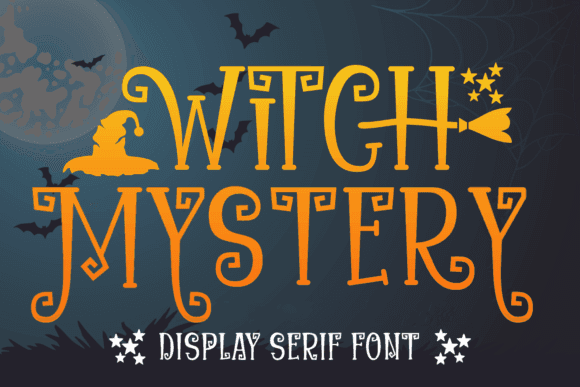
The Witch Mystery Font is an enchanting display typeface designed with magical undertones and vintage gothic styling. This font is ideal for crafting Halloween signs, potion labels, party invites, and occult-themed branding that demands a mysterious aesthetic.
Each letterform carries whimsical yet refined details, making it suitable for both playful and dark fantasy-inspired designs. Whether used for digital projects or physical printables, this font casts a visual spell across any medium.
- Halloween and seasonal product designers
- Gothic or occult-themed brand builders
- Poster and event invitation creators
- Scrapbookers and journal decor artists
- Halloween party signage and invites
- Witchy quotes on t-shirts and mugs
- Spellbook-style covers and printable labels
- Decorative posters and book titles
- Vinyl decals for bags, jars, and candles
- Spellbinding theme perfect for Halloween
- Gothic curves with magical accents
- Balances character and readability
Q: What kind of projects suit the Witch Mystery Font?
A: It’s ideal for Halloween, mystical branding, spellbooks, labels, gothic signage, and themed decor projects.
Q: Will this font display well in large sizes?
A: Yes, it's perfect for headlines, signage, and bold designs where the details can shine.
Q: Is it suitable for pairing with other fonts?
A: It pairs well with minimalist sans-serifs or handwritten scripts to balance its bold style.
| Feature | Witch Mystery Font | Halloween Display Font | Gothic Serif Typeface |
| Design Theme | Mystical, spooky, magical | Fun, cartoonish horror | Dark, classic, medieval |
| Ideal Projects | Invites, signs, shirts, labels | Party flyers, kids' crafts | Book covers, logos, posters |
| Readability | High for display size | Moderate with decorative flair | Sharp and structured |